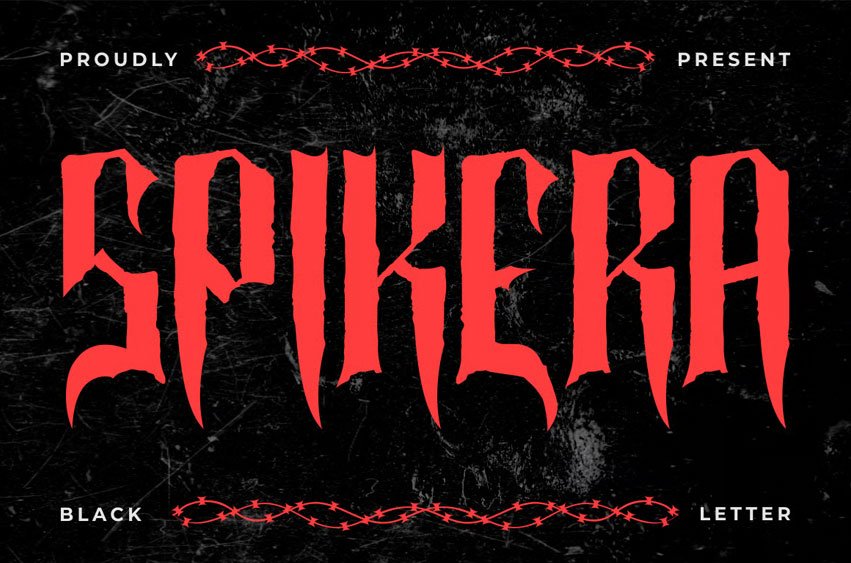
Spikera Black Font combines sharp blackletter construction with aggressive horror-inspired character details. The letters feature tall proportions, pointed terminals, rough edges, and dramatic vertical strokes that create a dark and intimidating appearance. Each character carries a handcrafted texture that feels raw, aged, and rebellious while keeping strong readability for large display settings. The font blends gothic influence with modern underground aesthetics, making every headline feel intense and cinematic. Angular cuts, narrow spacing, and sharp serif accents add tension and movement across compositions. This typeface works perfectly for horror branding, tattoo studio logos, dark beverage packaging, underground music promotions, gothic event posters, and cinematic title designs. Use it for logos, branding, posters, film titles, album covers, book covers, stickers, advertising, magazine headers, invitations, gaming graphics, and dark-themed creative projects.
Spikera Black Font captures the atmosphere of gothic culture, horror visuals, and underground street expression. The sharp structure creates a powerful visual identity for brands that want bold and dramatic typography. The font style feels dark, mysterious, rebellious, vintage, and modern at the same time. Tall letterforms with rough contours create a handcrafted black metal impression without losing balance and consistency. This font suits horror movies, gothic cafés, tattoo businesses, barber branding, whiskey labels, rock music campaigns, escape room promotions, dark fashion editorials, and alternative entertainment branding. It also performs strongly in large headlines, promotional graphics, social media banners, merchandise tags, and packaging titles. The multilingual characters and decorative punctuation support expressive layouts for creative branding and atmospheric typography projects.